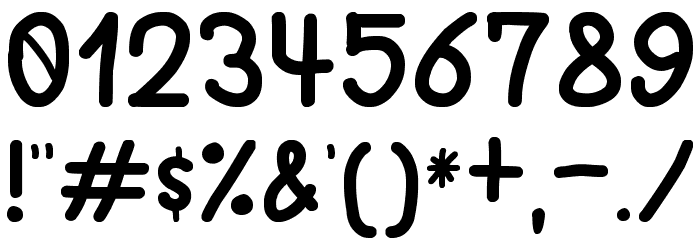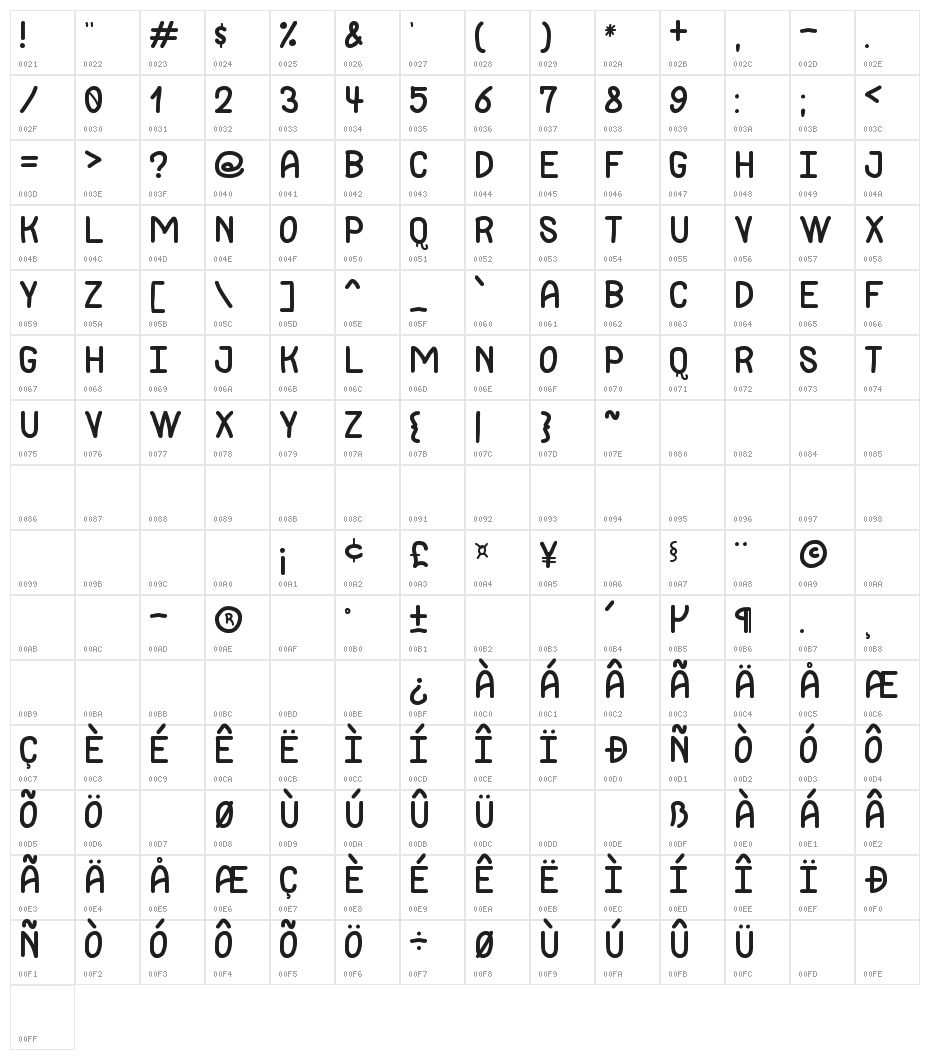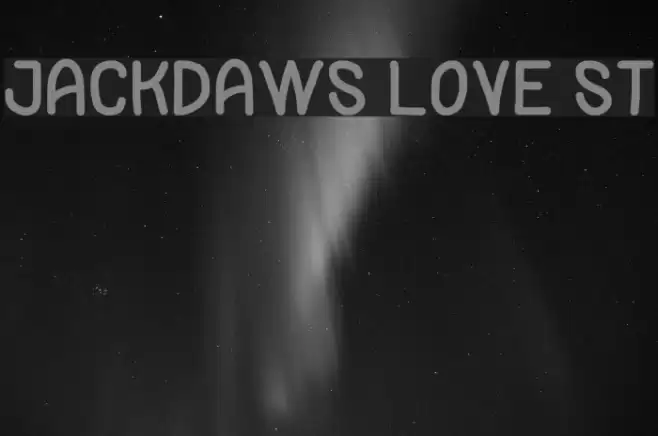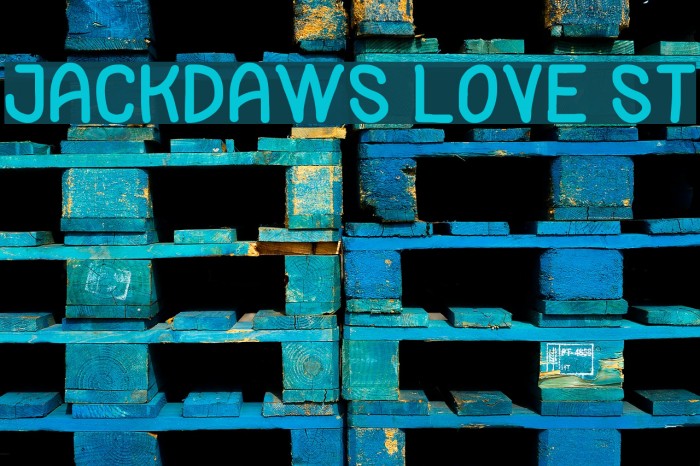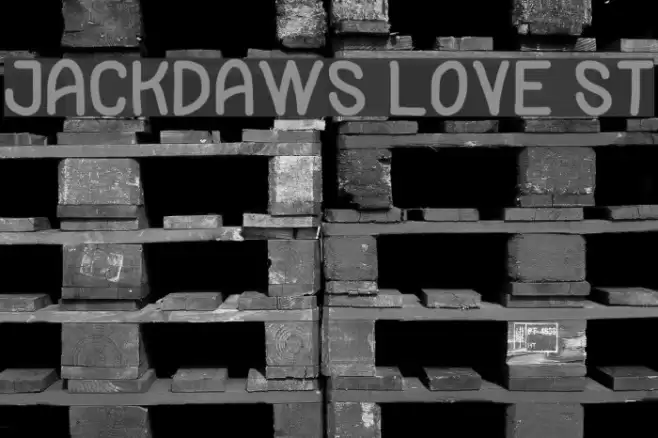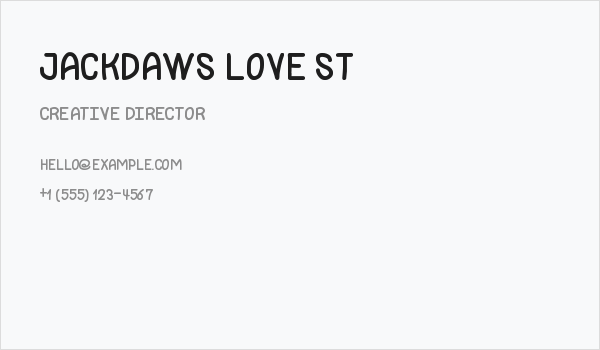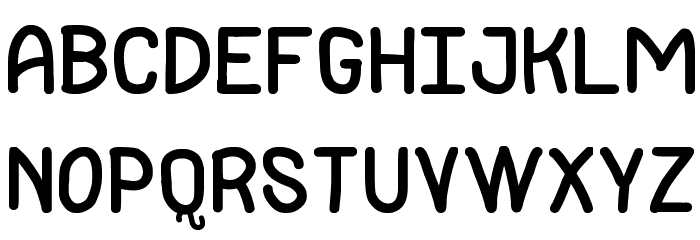
Jackdaws Love St Font
Jackdaws Love St Description
This playful and rounded font features a whimsical style with a friendly and approachable appearance. The characters are bold and slightly condensed, with smooth curves and a consistent stroke width that gives it a uniform look. The uppercase and lowercase letters maintain a cohesive design, making them easily readable. The numbers and special characters follow the same design principles, ensuring a harmonious overall appearance. This font's unique charm is perfect for projects that require a touch of fun and creativity.